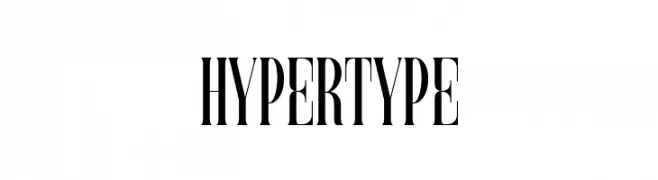
A sleek, modern hairline oblique font with a minimalistic and elegant design.
A playful, bold font with irregular strokes and a lively style.
A bold, geometric font with rounded edges and a modern, futuristic style.
A bold, expressive handwritten font with playful curves.
A bold, handwritten font with a playful and energetic style.
A bold, brush-style font with dynamic and expressive strokes.
A bold, geometric font with a hypnotic, decorative style.
A bold, geometric font with hypnotic, maze-like patterns inside each character.
A bold, geometric font with hypnotic, maze-like patterns.
A bold, geometric font with decorative circular patterns and double outlines.
A bold, modern font with vertical line patterns and a condensed, geometric style.
A dynamic and expressive handwritten script font with fluid letterforms.
A bold, distressed font with a grunge texture and high contrast, ideal for impactful designs.
A bold, modern sans-serif font with clean lines and geometric precision.
A bold, hand-drawn font with a playful and energetic style.
A pixelated, LED-style font with a modern, digital aesthetic.
A bold, playful handwritten font with rounded strokes and a whimsical style.
A playful, whimsical script font with a handwritten aesthetic.
A playful, casual handwritten font with fluid, organic letterforms.
A flowing, cursive font with elegant, interconnected strokes.
A playful, bold font with rounded, thick strokes and a hand-drawn feel.
A dynamic and flowing script font with elegant, cursive letterforms.
A dynamic script-sans hybrid with flowing, brush-like strokes and elegant curves.
A playful, hand-drawn font with bold, rounded characters.
A bold, playful handwritten font with rounded strokes and a dynamic slant.
A playful, bold font with a whimsical, cartoon-like style.
A bold, pixelated font with a retro, digital aesthetic.
A bold, geometric font with sharp angles and a strong, modern presence.
A bold, playful font with a frosty, snow-like design.
A bold, artistic font with a distressed texture and modern vintage charm.
A bold, playful font with rounded edges and a modern style.
A bold, italicized font with a 3D effect and thick outlines.
A bold, geometric font with a three-dimensional effect and strong visual impact.
A playful, ice cream-themed decorative font with bold, rounded characters.